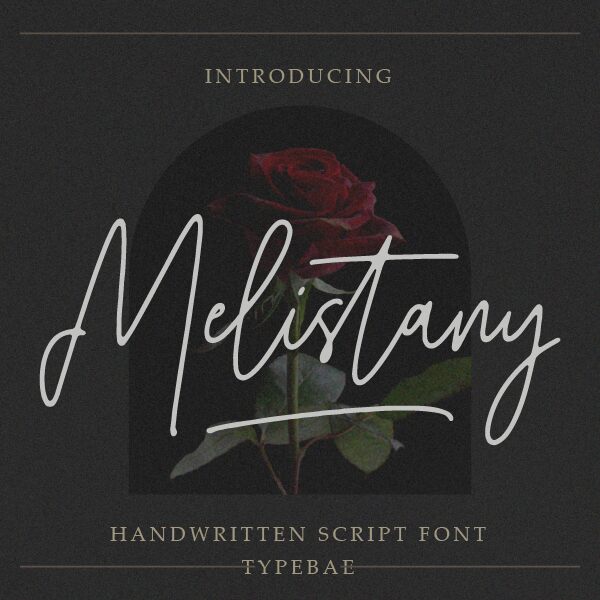
Melistany font designed by Typebae Foundry is a handwritten font that consists of light characters. The font has an elegant and sophisticated style to it which closely resembles a signature handwriting. Its flowing letters promote a modern aesthetic and a personal touch.
Use this free handwritten font in logotypes, signatures, headings, t-shirt designs, letterheads, signage, labels, posters and badges. Melistany works well for fashion publications (magazines & newspapers), reading apps or blogs/website articles.